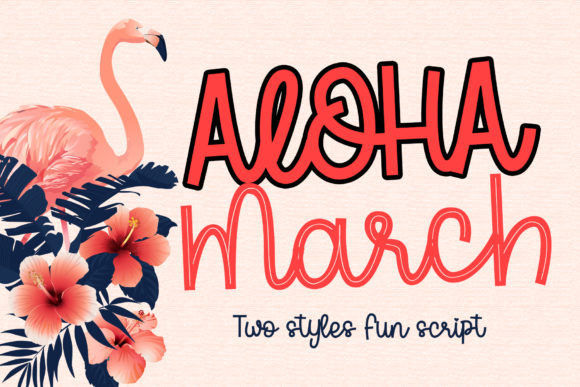
Aloha March Font: A Handcrafted Typography Masterpiece
In the world of typography, few fonts manage to capture the essence of excitement and energy as effectively as the Aloha March font. This meticulously handcrafted typeface is designed to leave a lasting impression, making it a perfect choice for a wide range of applications, from web design and print materials to moving images and more. In this article, we’ll take a closer look at what makes Aloha March an eye-catching font and why it’s poised to become a true favorite among designers and typography enthusiasts alike.
The Making of Aloha March: A Labor of Love
The creation of Aloha March is a testament to the power of careful craftsmanship and attention to detail. Each letterform, curve, and line has been meticulously handcrafted to ensure that the font exudes a sense of dynamism and flair. The result is a typeface that is not only visually stunning but also highly versatile, capable of adapting to various design contexts with ease.
One of the key factors that set Aloha March apart from other fonts is its unique blend of modernity and classic charm. The font’s design is rooted in traditional typography principles, yet it incorporates modern elements that give it a fresh and contemporary feel. This blend of old and new makes Aloha March an excellent choice for designers looking to add a touch of sophistication and elegance to their work.
Aloha March: A Font for All Occasions
Aloha March’s versatility is one of its most compelling features. Whether you’re working on a web design project, creating print materials, or crafting moving images, this font is sure to make a lasting impression. Its clear and legible letterforms make it an excellent choice for body text, while its bold and eye-catching design makes it perfect for headlines and titles.
In web design, Aloha March can add a touch of personality and flair to any website. Its clean and modern design ensures that it remains legible even at small font sizes, making it an excellent choice for use in digital interfaces. Additionally, the font’s responsiveness means that it will look great on any device, from desktop computers to mobile phones and tablets.
In print materials, Aloha March can add a level of sophistication and elegance to any design. Whether you’re creating business cards, brochures, or posters, this font is sure to make your work stand out. Its bold and eye-catching design makes it perfect for headlines and titles, while its clear and legible letterforms ensure that body text is easy to read.
The Benefits of Using Aloha March
So why choose Aloha March over other fonts? Here are just a few benefits of using this exceptional typeface:
- Unique Design: Aloha March boasts a unique and eye-catching design that is sure to make your work stand out.
- Versatility: This font is highly versatile and can be used in a wide range of applications, from web design and print materials to moving images and more.
- Legibility: Aloha March’s clear and legible letterforms make it easy to read, even at small font sizes.
- Modernity: The font’s modern design ensures that it remains fresh and contemporary, making it perfect for designers looking to create cutting-edge work.
- Experiment with Font Sizes: The font’s versatility means that it can be used at a wide range of font sizes, from small body text to large headlines.
- Play with Color: Aloha March can be used in a variety of colors to add an extra layer of depth and interest to your design.
Aloha March is an exceptional font that is sure to become a true favorite among designers and typography enthusiasts alike. Its unique blend of modernity and classic charm, combined with its versatility and legibility, make it an excellent choice for a wide range of design applications. Whether you’re working on a web design project, creating print materials, or crafting moving images, Aloha March is sure to make a lasting impression.